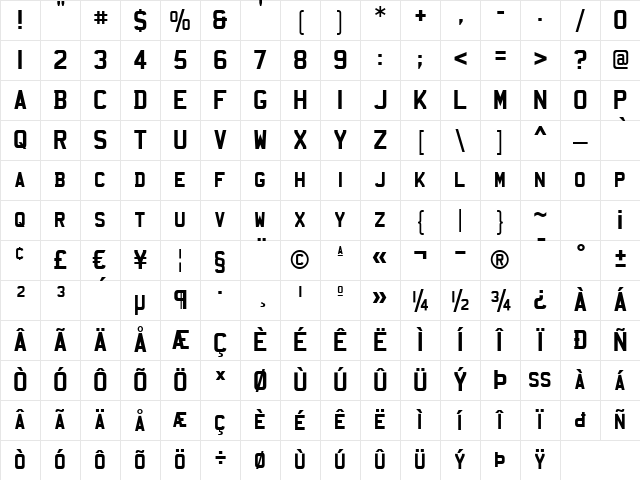
Mandatory Regular
Copyright: Mandatory by Keith Bates is a full typeface based on the font used for UK vehicle registration plates, but with improved M and W stem separation. KType Freebie © 2004, 2007 (Version 3.03)
Design Context for Mandatory
Mandatory is a composed and adaptable typeface that performs quietly and consistently across a wide range of design contexts.